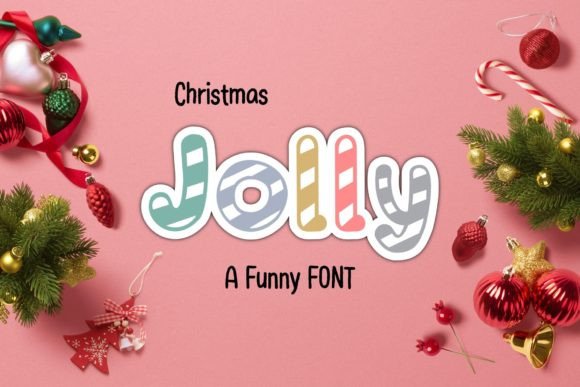
The Magic of Christmas Jolly: A Fun and Adorable Decorative Font
Ah, the holiday season is upon us, and you know what that means – a flurry of festive design projects! I’m sure many of you, like me, have been working on Christmas-themed logos, social media posts, or crafty DIY projects, searching for that perfect font to capture the jolly spirit. I recall a particularly frustrating design session last year, struggling to find a font that embodied the whimsy and cheer of the season. That’s when I stumbled upon Christmas Jolly, a game-changing decorative font that instantly brought my designs to life!
An Honest Review of Christmas Jolly
So, what makes Christmas Jolly so special? Let’s dive into the good stuff and, of course, a few minor quirks.
What I Love About Christmas Jolly ✨
- ✅ Fun and playful vibe: Christmas Jolly exudes a sense of joy and festivity, making it perfect for holiday-themed designs.
- ✅ Versatile: This font is suitable for a wide range of projects, from logos and branding to social media posts and crafty DIY projects.
- ✅ Easy to read: Despite its decorative nature, Christmas Jolly remains surprisingly legible, even at smaller font sizes.
- ⚠️ Limited use outside of holiday season: Let’s face it, Christmas Jolly might not be the best fit for non-holiday designs, as its festive vibe might not be suitable for other contexts.
- ⚠️ Some characters may require manual adjustment: Occasionally, certain character combinations might need tweaking to ensure optimal spacing and alignment.
The Backstory Behind Christmas Jolly
According to the font’s creators, Christmas Jolly was inspired by traditional holiday decorations and the joy of childhood wonder. The design process involved carefully balancing playfulness with legibility, resulting in a font that’s both fun and functional.
Q: What makes Christmas Jolly so special?
A: Christmas Jolly’s unique blend of playfulness, legibility, and versatility makes it an excellent choice for holiday-themed designs.
Q: Is Christmas Jolly suitable for non-holiday designs?
A: While Christmas Jolly can be used for non-holiday projects, its festive vibe might not be the best fit. Consider using a more neutral font for non-seasonal designs.